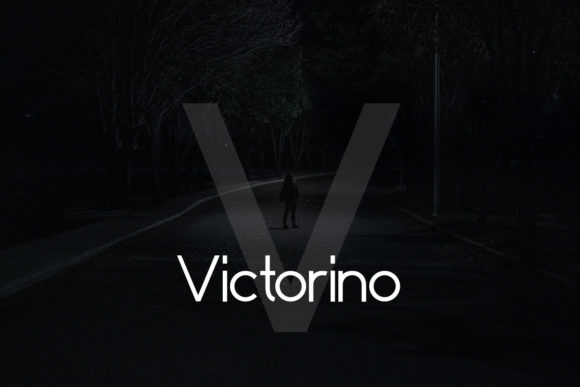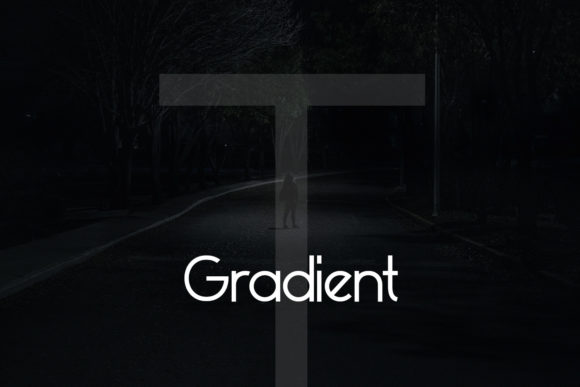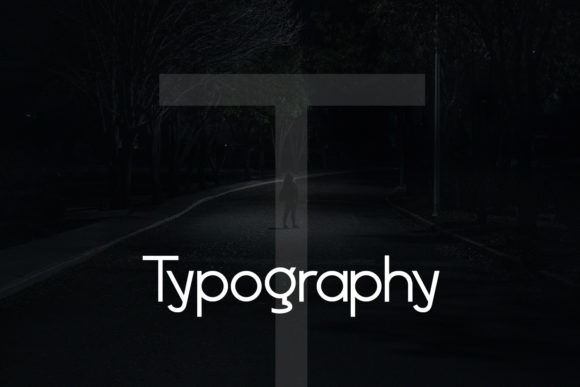
The Dracula Font: A Designer’s New Best Friend
I’ll never forget the struggle I faced while working on a project for a client who wanted a minimalist design with a touch of elegance. I spent hours scouring the internet for the perfect font, only to come up empty-handed. That was until I stumbled upon the Dracula font. This remarkably clear and tidy sans serif font has been a game-changer for me, and I’m excited to share my experience with you.
So, what makes the Dracula font so special? Let’s dive into the good stuff and, of course, the not-so-good stuff. 😊
- ✨ **Exceptional clarity**: The Dracula font is incredibly clear, making it perfect for both digital and print projects.
- ✅ **Tidy and minimalistic design**: Its clean lines and simple curves give it a sophisticated look that’s hard to achieve with sans serif fonts.
- 💡 **Versatility**: Whether you’re working on a logo, a brochure, or a website, the Dracula font adapts seamlessly to different contexts.
While the Dracula font is exceptional, it’s not without its quirks. 🤔
- ⚠️ **Limited character set**: Some users have reported that the font lacks certain special characters, which might limit its use in specific projects.
- ⚠️ **Not ideal for body text**: While it’s great for headings and titles, the Dracula font might not be the best choice for lengthy body text due to its minimalist design.
The Dracula font was created with the goal of providing a clean, modern sans serif that could be used across various mediums. Inspired by the simplicity and elegance of contemporary design, the font’s designer aimed to create a typeface that would be both versatile and beautiful. While the exact details about the designer might be scarce, the font’s impact on the design community is undeniable.
Q: What type of projects is the Dracula font best suited for?
A: The Dracula font excels in projects that require a clean, modern look, such as branding, digital interfaces, and print materials like brochures and posters.